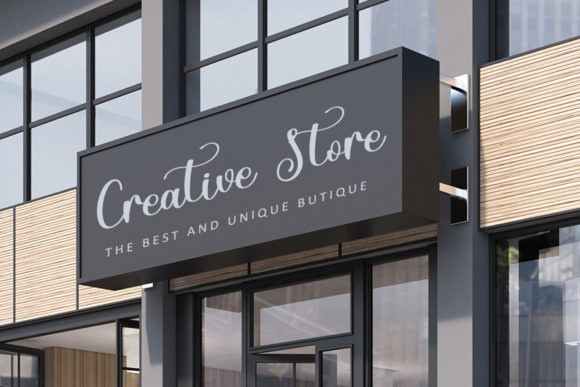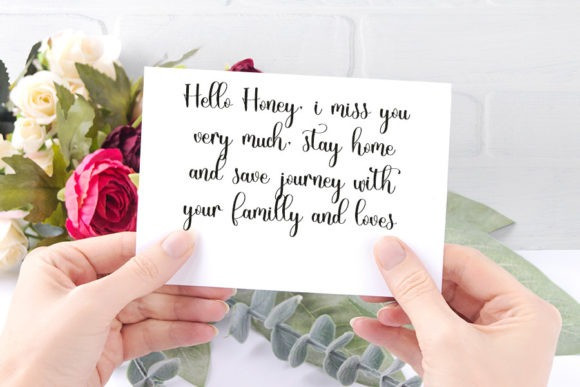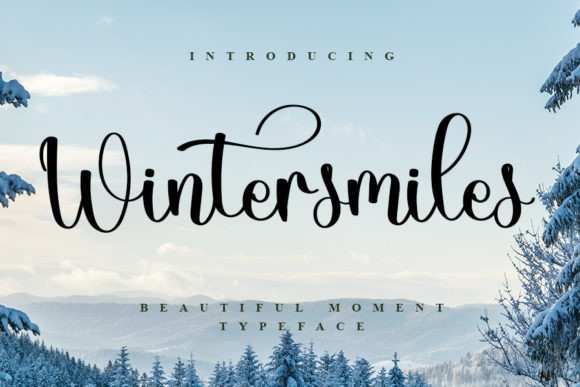
Wintersmiles Font
Wintersmiles Font is a flowing and graceful script font. Fall for its ravishing style and use it to create gorgeous wedding invitations, beautiful stationary art, eye-catching social media posts, and much more!